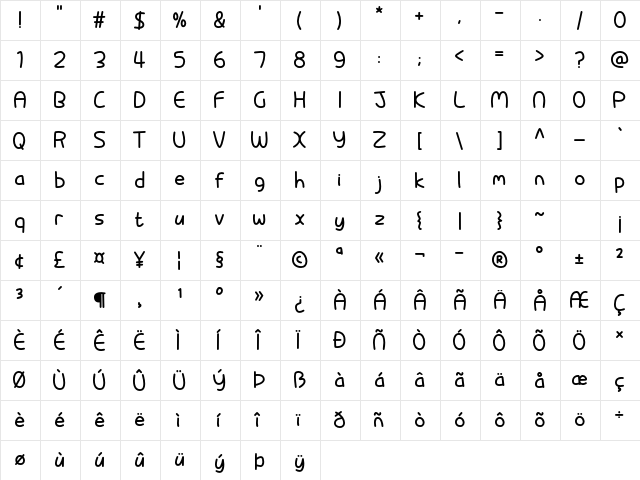
Pixabubble Regular
Design Context for Pixabubble Typeface
Pixabubble has an approachable, lighthearted character — its loose, expressive forms are well-suited to children's content, casual branding, and fun-first design.
Well-suited to food and beverage brands with personality, educational materials, and fun-forward identities.
Font Pairing: Pairs well with a rounded or humanist sans for body copy, maintaining the friendly tone without relying on Pixabubble to carry extended reading.
Pro Tip: Use Pixabubble at larger display sizes where its expressive character can land. Pair with a clean, simple sans for body copy to maintain readability.